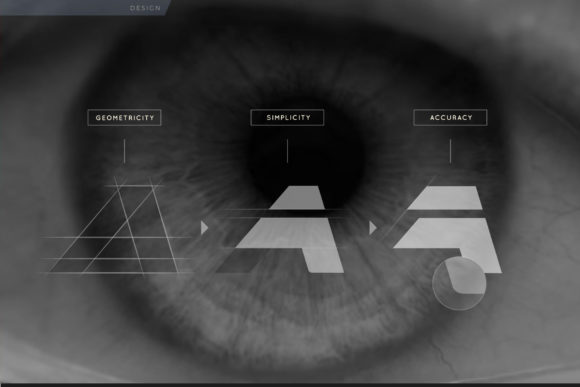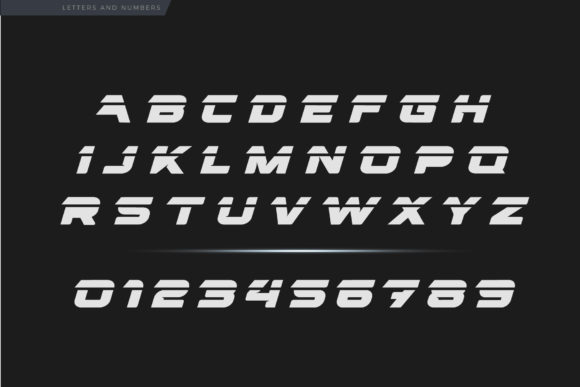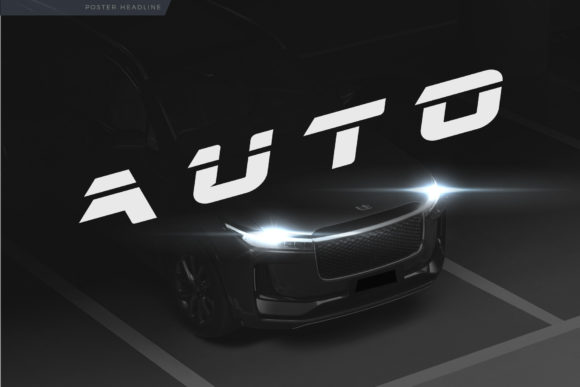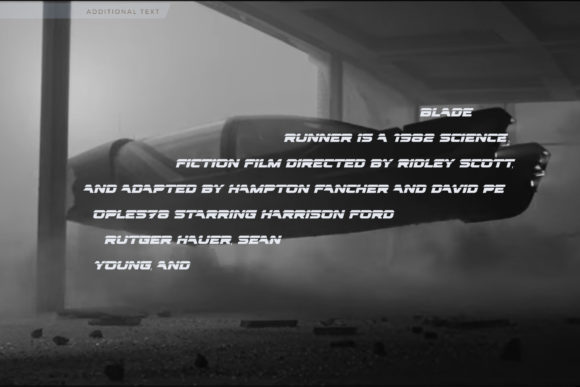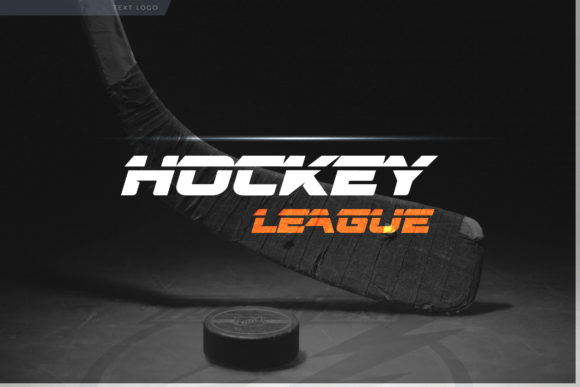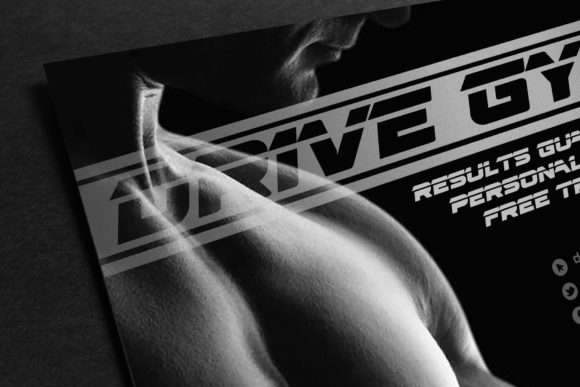
Unleash Your Creativity with Blade Font: The Ultimate Display Font for Designers and Crafters
Are you a designer or crafter looking for a font that can add a touch of speed and power to your designs? Look no further than the Blade Font! This bold and thick lettered display font is perfect for projects that require a strong and dynamic look. In this article, we’ll explore the features and benefits of Blade Font, and how you can use it to take your designs to the next level.
What is Blade Font?
Blade Font is a display font that is designed to make a statement. Its bold and thick letters are perfect for creating eye-catching designs that demand attention. The font is versatile and can be used in a variety of contexts, from sports and fitness to technology and gaming. Whether you’re creating a logo, a poster, or a social media graphic, Blade Font is sure to make your design stand out.
Key Features of Blade Font
- Bold and Thick Letters: The letters in Blade Font are bold and thick, making them perfect for creating designs that require a strong and dynamic look.
- Versatile: Blade Font can be used in a variety of contexts, from sports and fitness to technology and gaming.
- Easy to Read: Despite its bold and thick letters, Blade Font is easy to read, making it perfect for designs that require a clear and concise message.
- Highly Customizable: Blade Font can be customized to fit your design needs, including changing the color, size, and style.
How to Use Blade Font in Your Designs
Blade Font is a versatile font that can be used in a variety of design projects. Here are some ideas to get you started:
- Logos: Use Blade Font to create a bold and eye-catching logo for your business or brand.
- Posters: Create a poster that demands attention with Blade Font.
- Social Media Graphics: Use Blade Font to create social media graphics that stand out from the crowd.
- Headings and Titles: Use Blade Font to add a touch of speed and power to your headings and titles.
Benefits of Using Blade Font
There are many benefits to using Blade Font in your designs. Here are a few:
- Increased Visibility: Blade Font is designed to grab attention, making it perfect for designs that require a strong and dynamic look.
- Improved Brand Recognition: Use Blade Font to create a consistent look and feel for your brand.
- Enhanced Creativity: Blade Font is a versatile font that can be used in a variety of contexts, making it perfect for designers and crafters who want to push the boundaries of their creativity.
Tips and Tricks for Using Blade Font
Here are some tips and tricks for using Blade Font in your designs:
- Use it Sparingly: Blade Font is a bold font, so use it sparingly to avoid overwhelming your design.
- Experiment with Colors: Blade Font looks great in a variety of colors, so experiment with different colors to find the one that works best for your design.
- Pair it with Other Fonts: Blade Font can be paired with other fonts to create a unique and interesting look.
Blade Font is a bold and thick lettered display font that is perfect for designers and crafters who want to add a touch of speed and power to their designs. With its versatile and highly customizable features, Blade Font is sure to become a staple in your design toolkit. So why wait? Download Blade Font today and unleash your creativity!